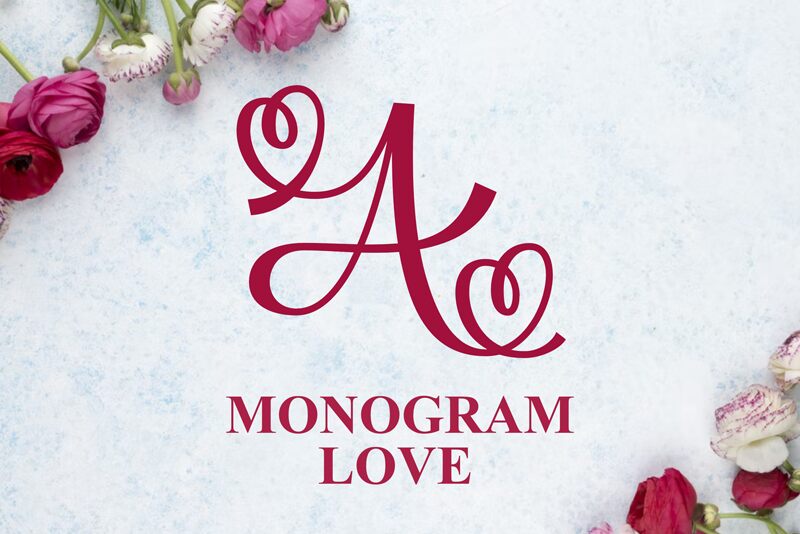
Monogram Love by Dicky Safaat Fuadi is the perfect font for all your Valentine's Day projects. With its intricate monogram style and semi-light weight, this font adds an elegant touch to any design. Use it for creating personalized love letters, wedding invitations or romantic social media posts. The versatility of Monogram Love allows it to be used in a variety of projects, such as branding for luxury hotels or high-end fashion boutiques. Its unique style and refined appearance make it a standout choice for anyone looking to add a touch of sophistication to their work.